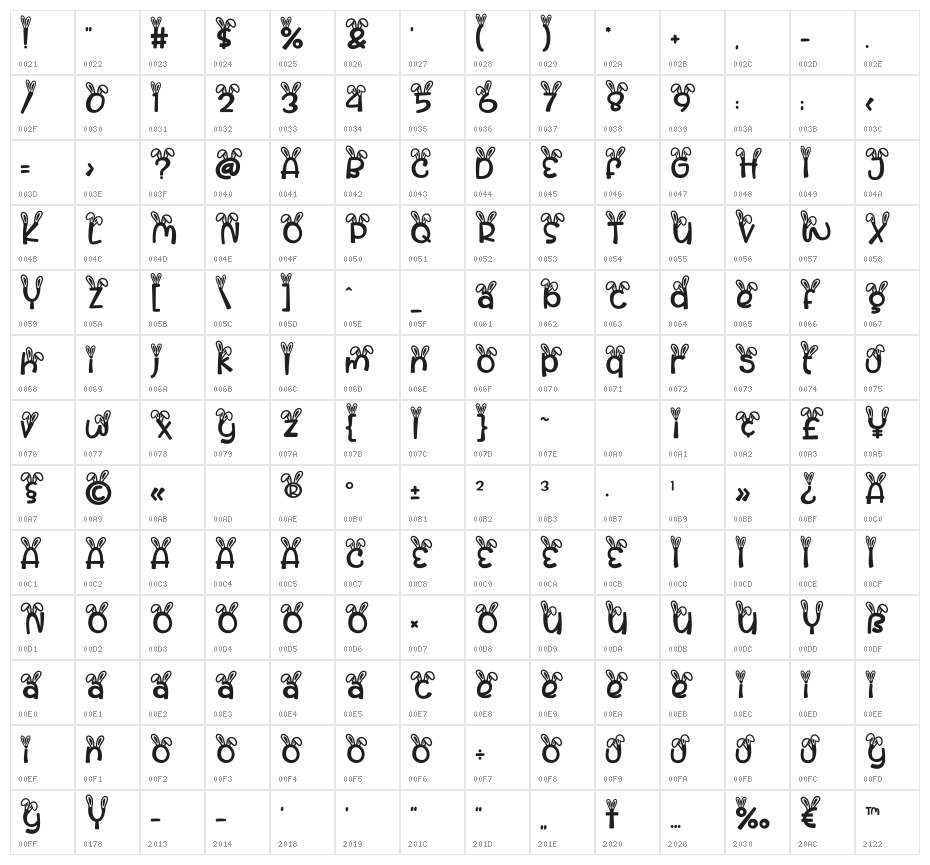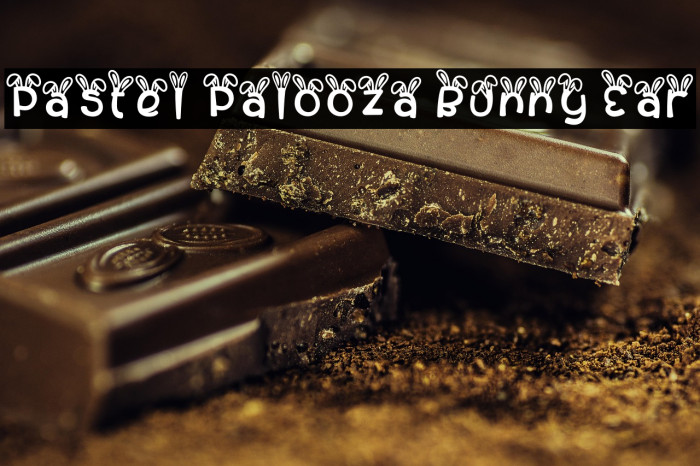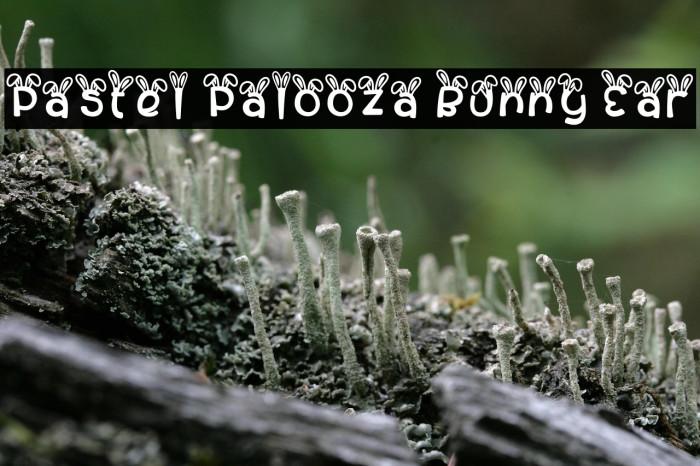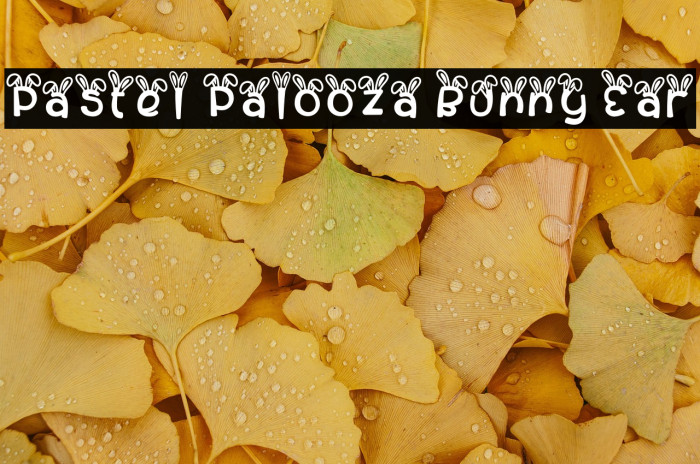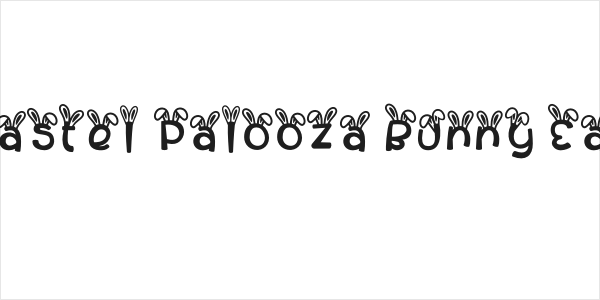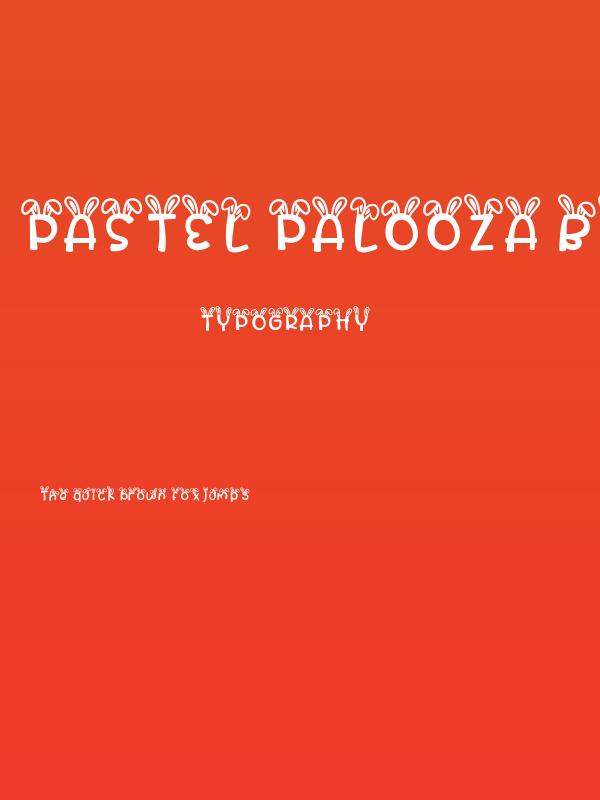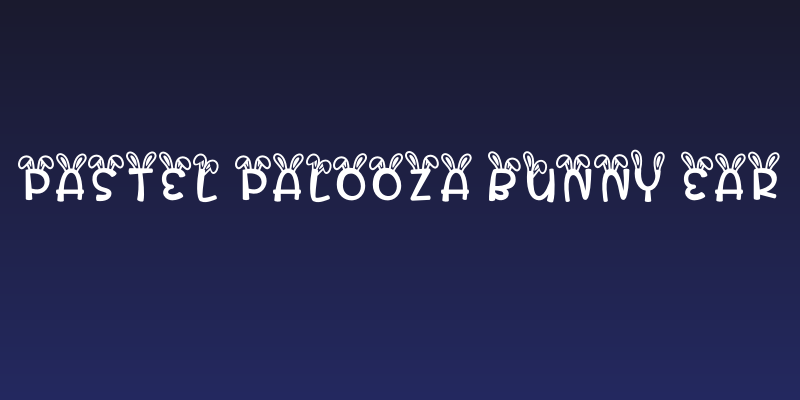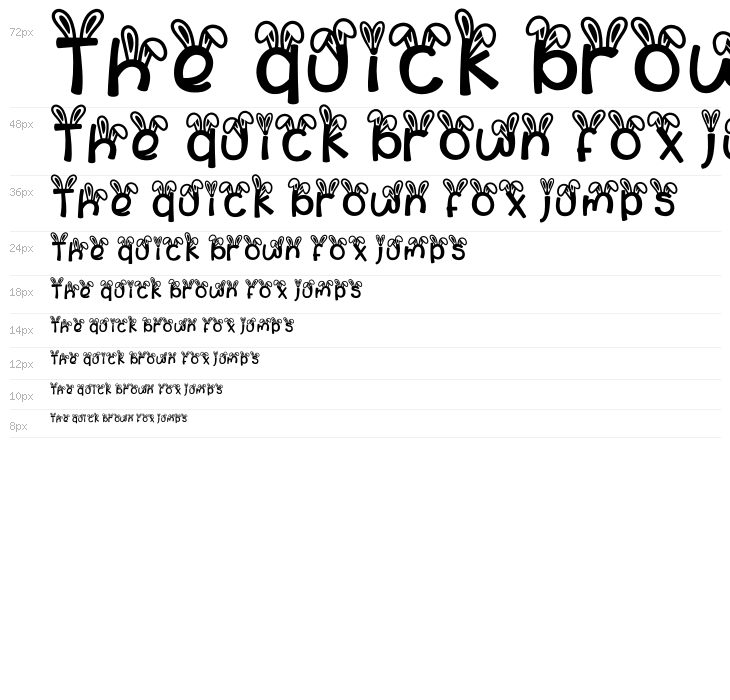
Pastel Palooza Bunny Ear Font
Pastel Palooza Bunny Ear Description
This playful and whimsical font features unique bunny ear embellishments on each character, adding a fun and festive touch. The letters are bold and rounded, with a consistent thickness throughout, giving them a friendly and approachable appearance. The font maintains a uniform style across uppercase, lowercase, numbers, and special characters, ensuring a cohesive look. Its decorative nature makes it ideal for projects that require a lighthearted and cheerful vibe, such as children's books, holiday cards, or playful branding. The consistent character spacing and medium contrast in stroke thickness enhance readability while maintaining its distinctive charm.
| Proposed Projects | Ideal for children's books, holiday cards, playful branding, and festive invitations. |